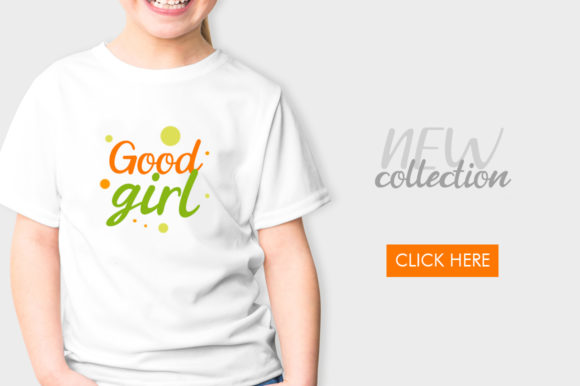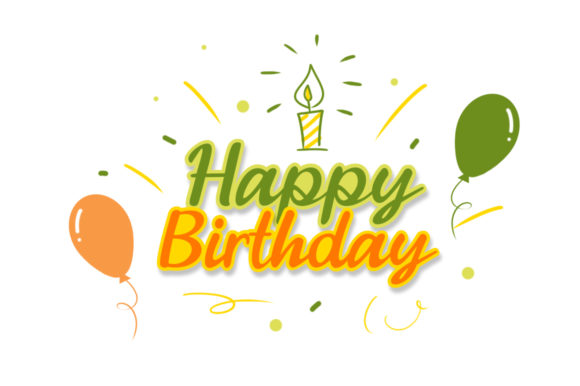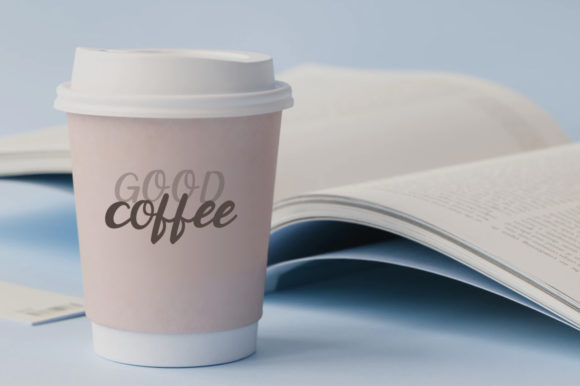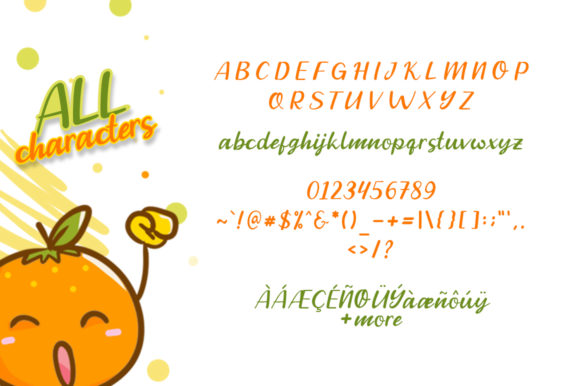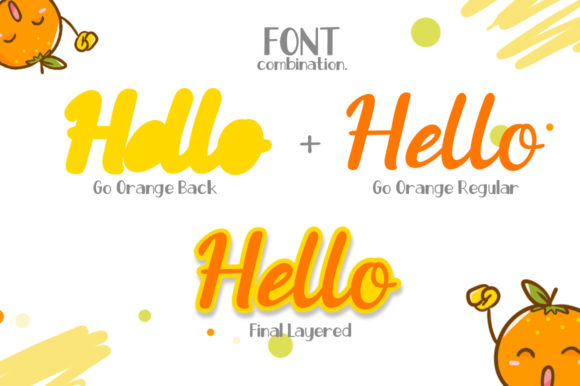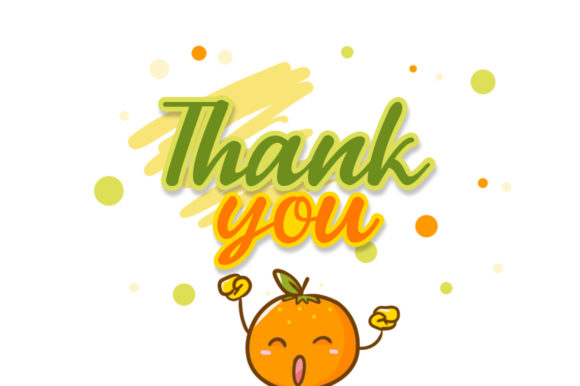
Introducing Go Orange Font: A Fun and Versatile Script Typeface
Are you tired of using the same old fonts for your design projects? Look no further than Go Orange Font, a fun and versatile script typeface that’s perfect for adding a pop of personality to your work. In this article, we’ll take a closer look at the features and benefits of Go Orange Font, and explore how it can be used to elevate your designs.
A Unique and Playful Font
The Go Orange Font is a fun script typeface that includes awesome characters in 2 different styles: regular and super bold (back). This means that you can use it to create a wide range of designs, from subtle and elegant to bold and eye-catching. The font’s playful and energetic vibe makes it perfect for designs that need to stand out, such as posters, logos, and large-scale artwork.
So, what can you use Go Orange Font for? The possibilities are endless! Here are just a few ideas to get you started:
- Name cards: Add a touch of personality to your business cards or name tags with Go Orange Font.
- Posters: Create eye-catching posters for events, promotions, or advertising campaigns.
- Logos: Use Go Orange Font to create a unique and memorable logo for your brand.
- Magazines and covers: Add a pop of color and personality to your magazine covers or article titles.
- Large-scale artwork: Use Go Orange Font to create stunning large-scale artwork for exhibitions, displays, or installations.
Key Features of Go Orange Font
So, what makes Go Orange Font so special? Here are some of its key features:
- Two styles: Regular and super bold (back) styles give you flexibility and versatility.
- Awesome characters: The font includes a range of awesome characters to help you create unique and interesting designs.
- Playful and energetic: The font’s playful and energetic vibe makes it perfect for designs that need to stand out.
Tips for Using Go Orange Font
Here are some tips for getting the most out of Go Orange Font:
- Experiment with different styles: Try using the regular and super bold styles together to create visual interest.
- Play with color: Go Orange Font looks great in bright, bold colors – don’t be afraid to get creative!
- Use it sparingly: While Go Orange Font is a fun and playful font, it can be overwhelming if overused. Use it sparingly to add a pop of personality to your designs.
In conclusion, Go Orange Font is a fun and versatile script typeface that’s perfect for designers and crafters looking to add a pop of personality to their work. With its two styles, awesome characters, and playful and energetic vibe, it’s perfect for a wide range of design projects. Whether you’re creating name cards, posters, logos, or large-scale artwork, Go Orange Font is a great choice. So why not give it a try and see what amazing designs you can create?